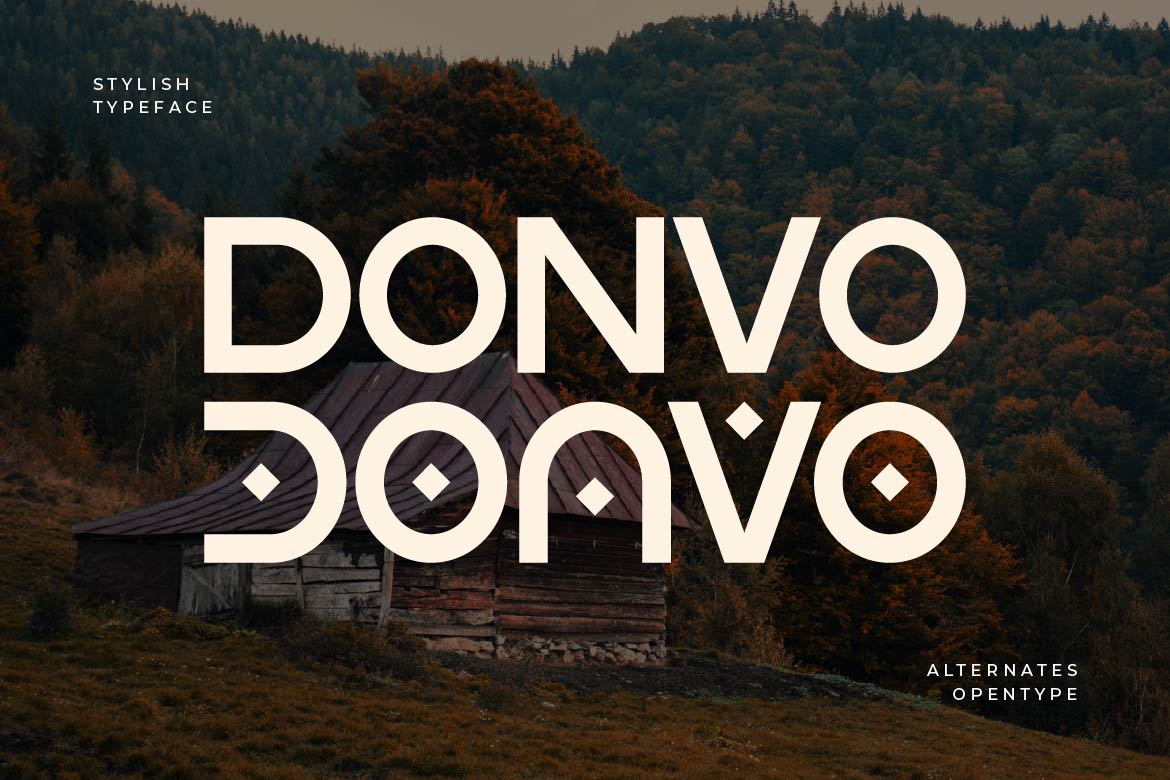
- Donvo – Medieval Sans Serif Font for Modern Gothic Design
Donvo is a unique medieval-inspired sans serif typeface that blends historical character with modern simplicity. Featuring distinctive letterforms influenced by gothic and medieval styles, Donvo delivers a bold and artistic personality while maintaining clean and readable structure.
Perfect for fantasy projects, historical themes, book covers, posters, branding, logos, and creative design, Donvo offers a rare combination of old-world charm and contemporary clarity. Its unusual style makes it ideal for designers who want to create standout visuals with a strong identity.
Whether used for storytelling, themed branding, or artistic layouts, Donvo brings a timeless yet modern feel to your typography.
Donvo is not just a font — it’s a fusion of history and modern design.